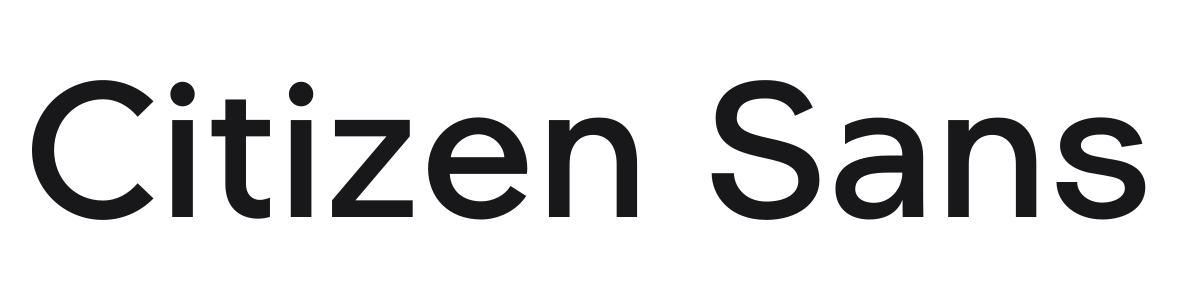
Citizen Sans
Citizen Sans is a clean, modern grotesque sans designed by Luke Ferrand for broad, everyday use. It sits comfortably between the cold precision of a Swiss grotesque and the warmth of a humanist sans, making it readable at body sizes and confident at display scale. A solid workhorse for branding, editorial, and UI work that needs to communicate without getting in the way.